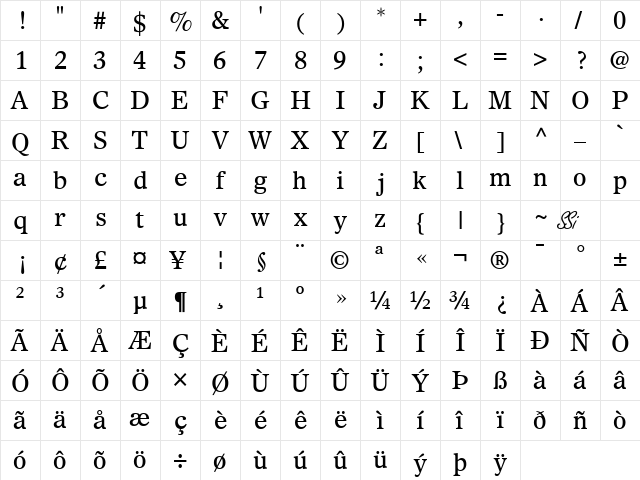
Sterling SSi Regular
Design Context for Sterling SSi Typeface
Sterling SSi takes a measured approach to typography — its balanced proportions and neutral character make it a reliable workhorse for both digital and print work.